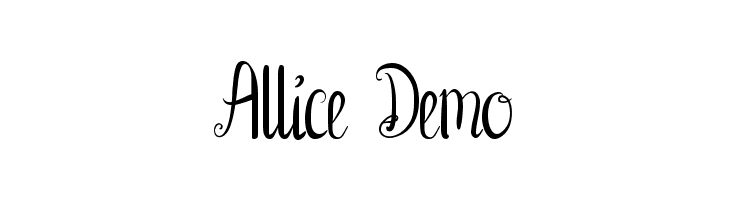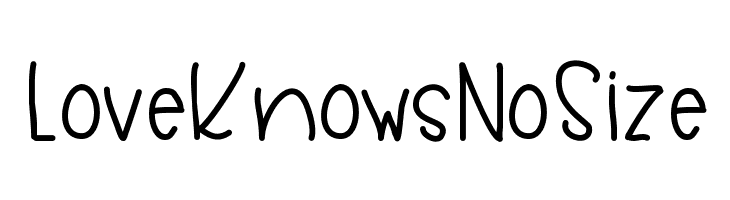
An elegant script font with flowing, cursive lines and intricate flourishes.
A bold, brush-style font with dynamic and expressive strokes.
A flowing, cursive font with elegant loops and smooth transitions.
A playful, handwritten font with smooth curves and a casual style.
A bold, handwritten-style font with dynamic and expressive characters.
A sophisticated script font with flowing, connected strokes.
A bold, striped font with a modern and geometric design.
A bold, modern font with thick, block-like letters and high contrast.
A playful, heart-accented decorative font with bold, rounded characters.